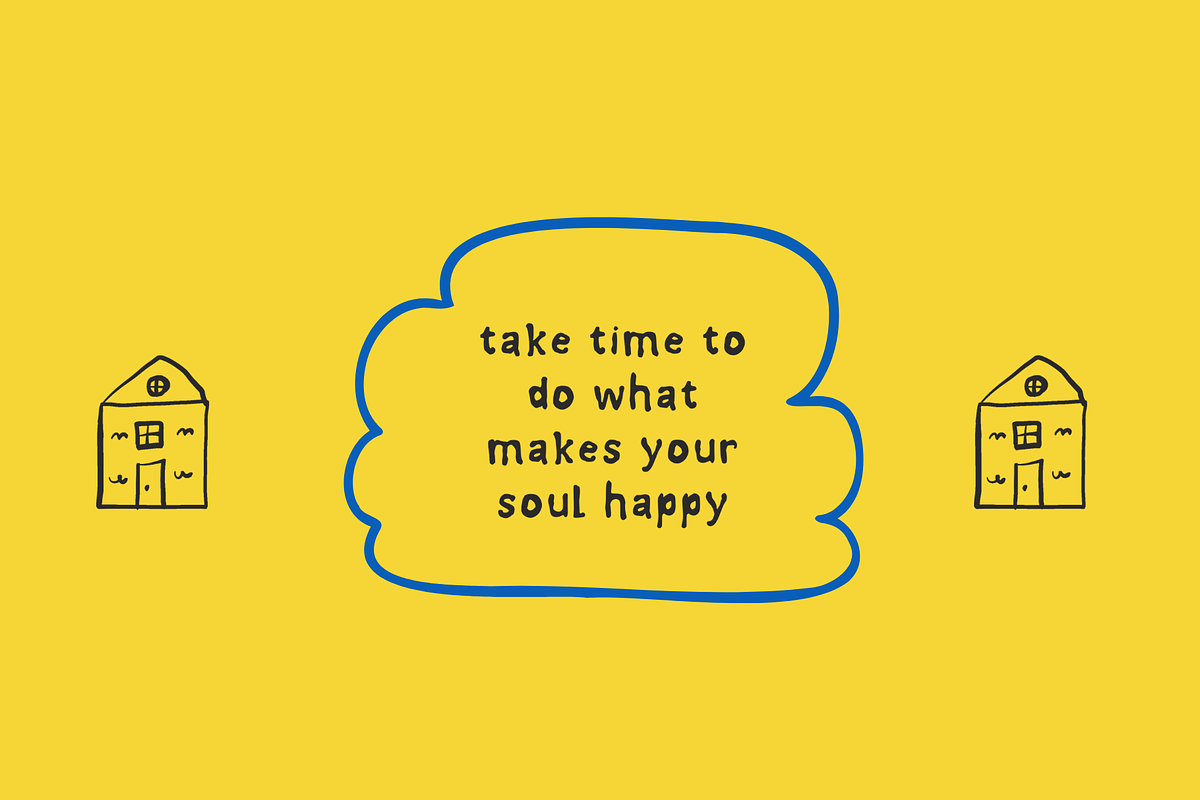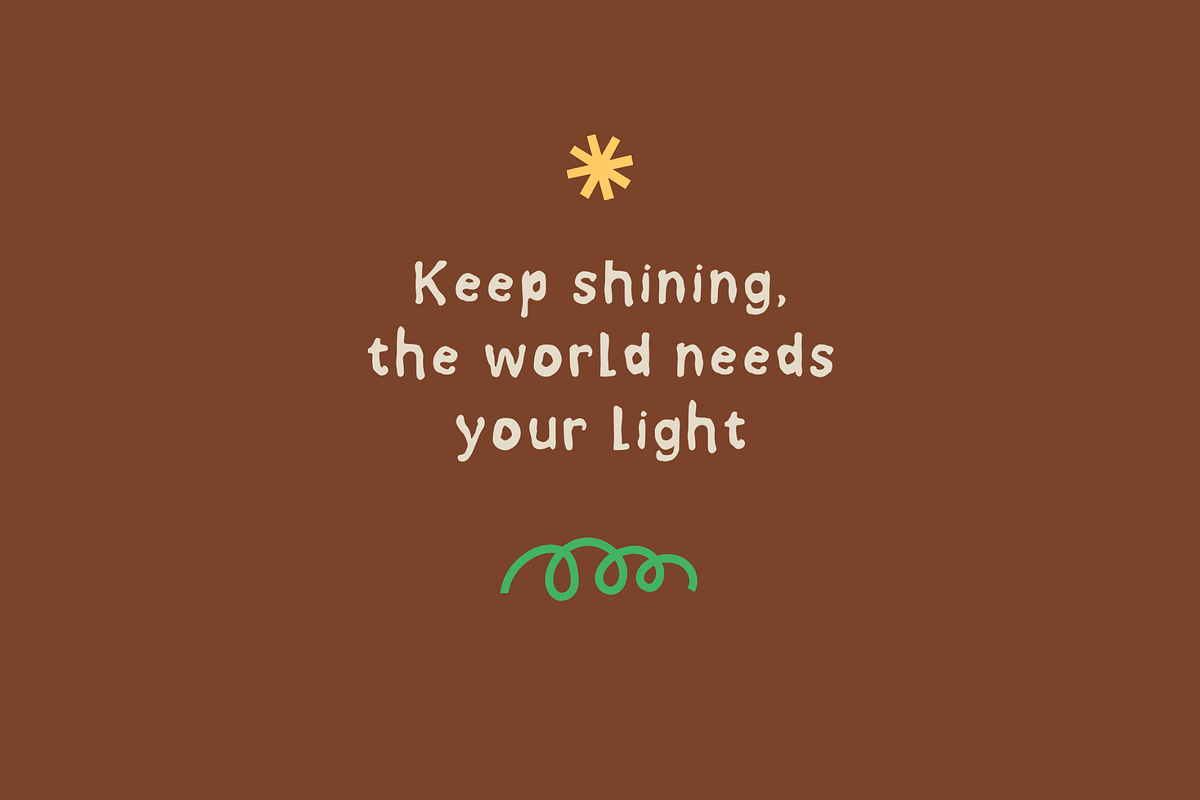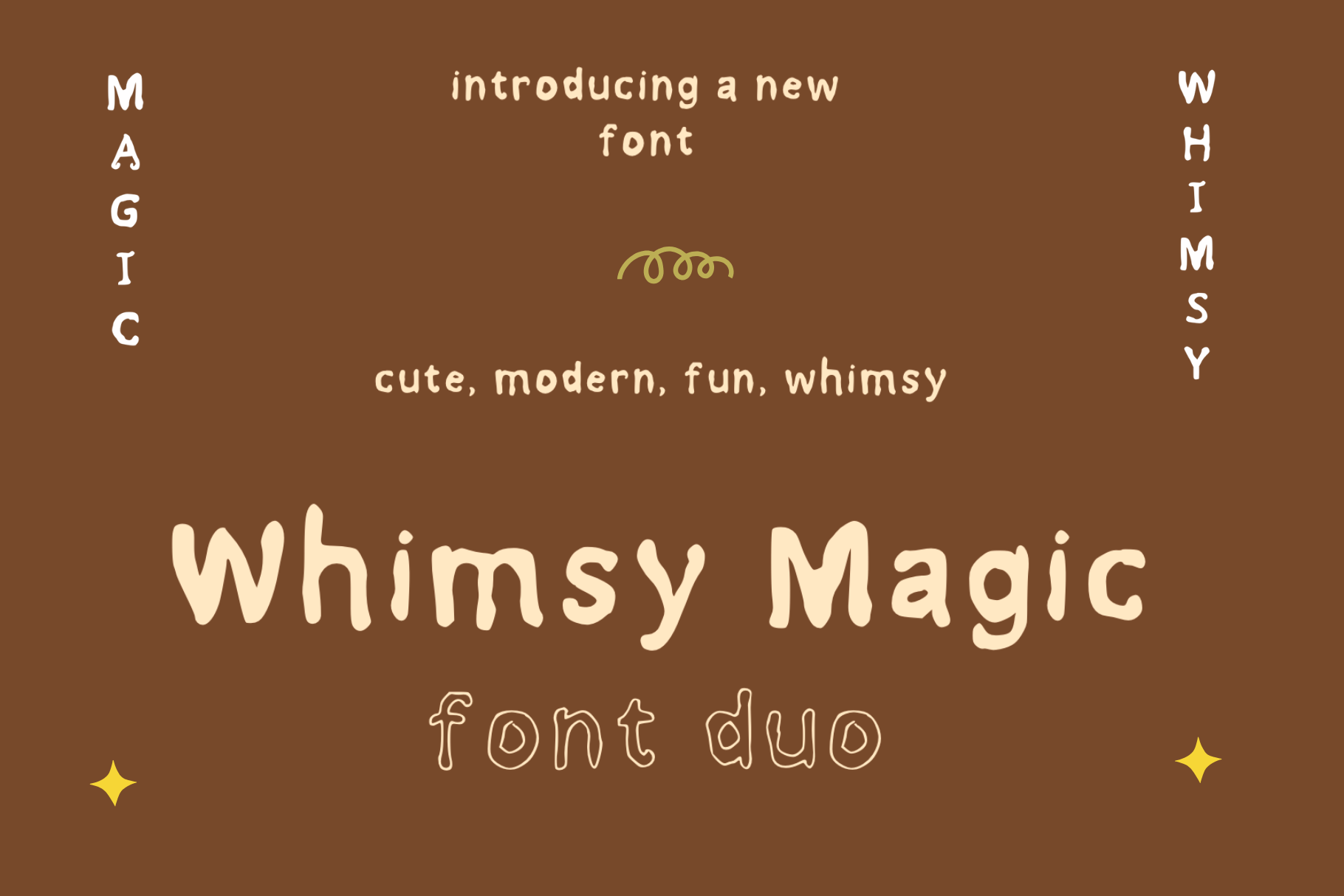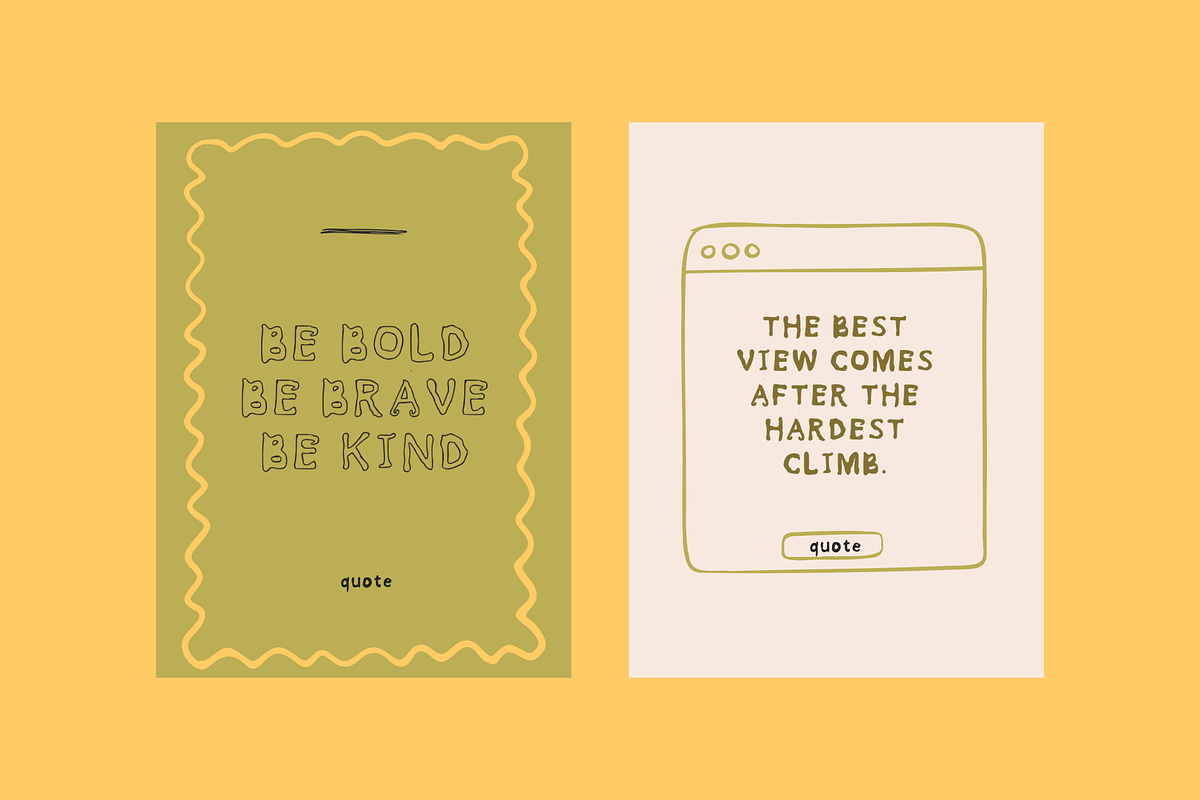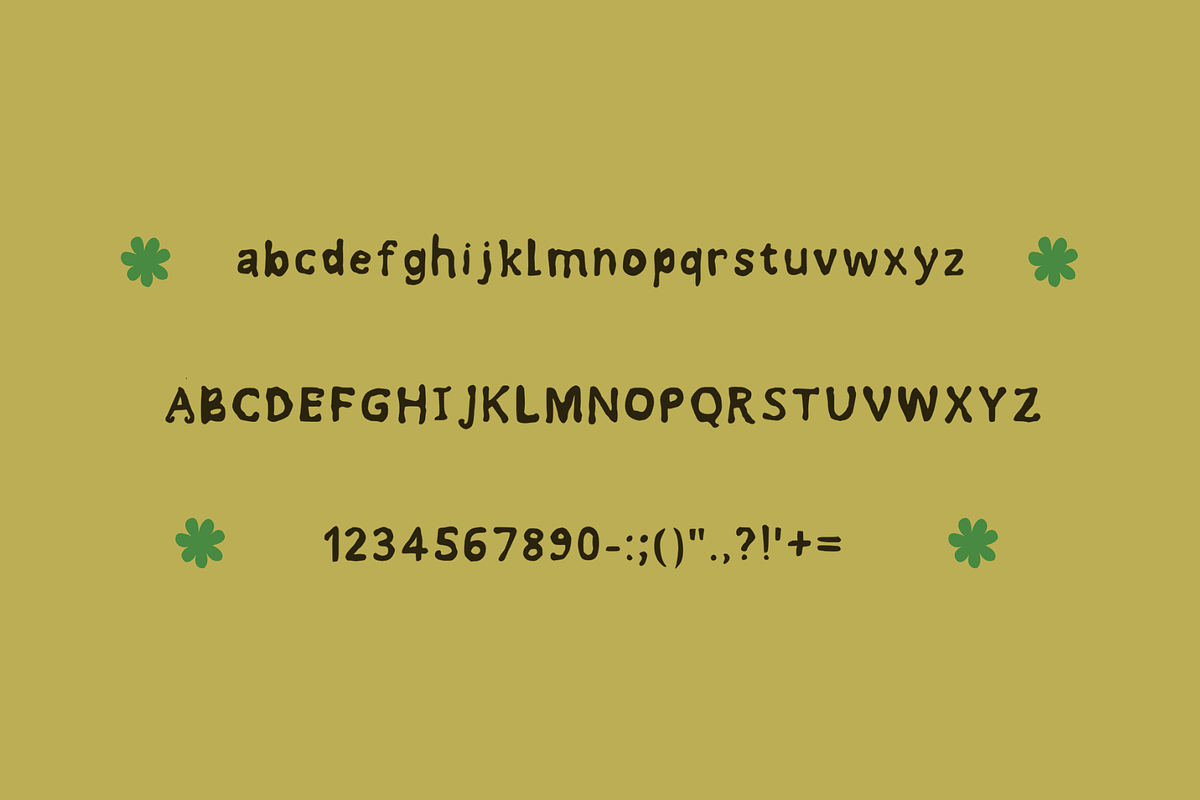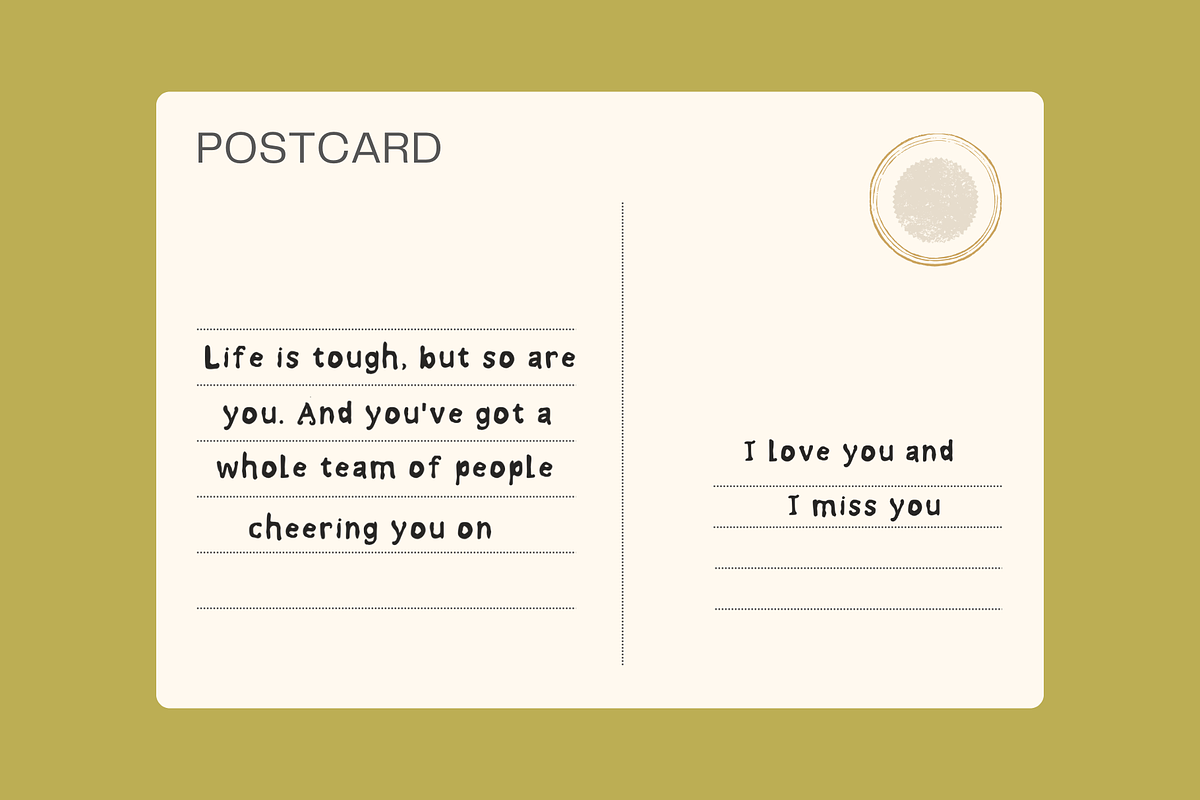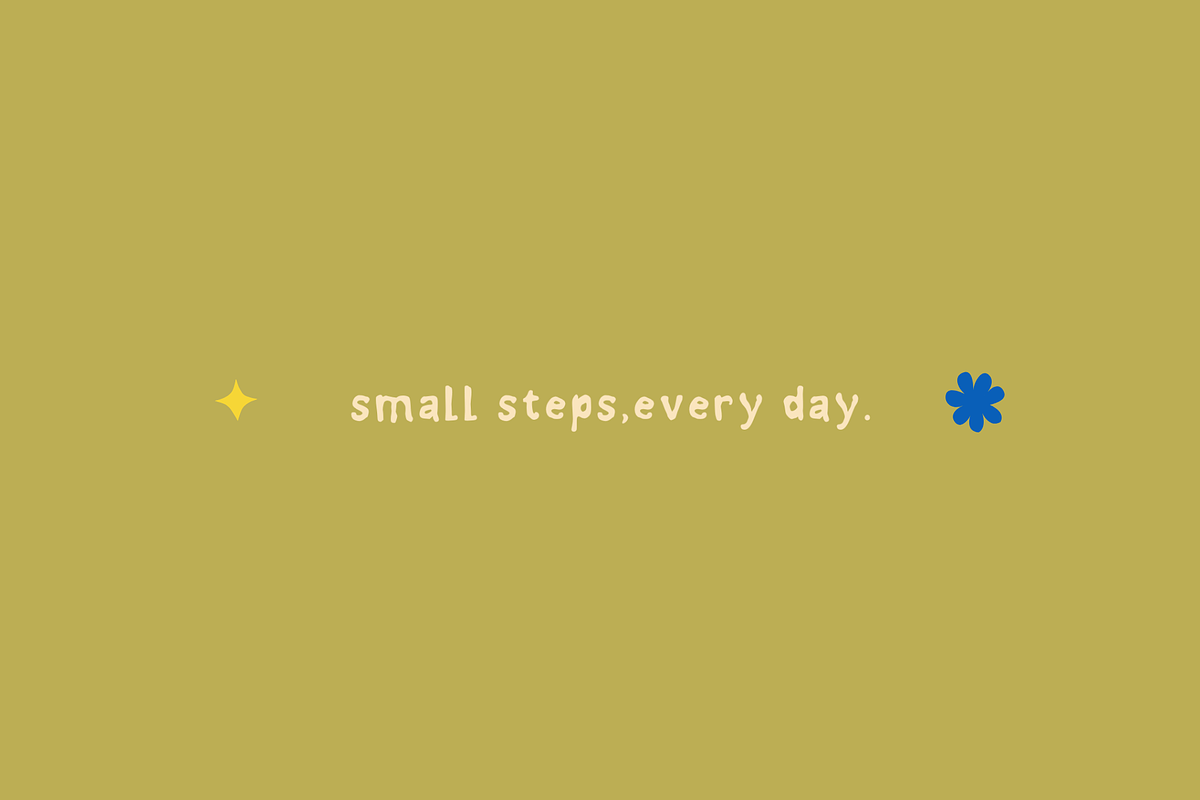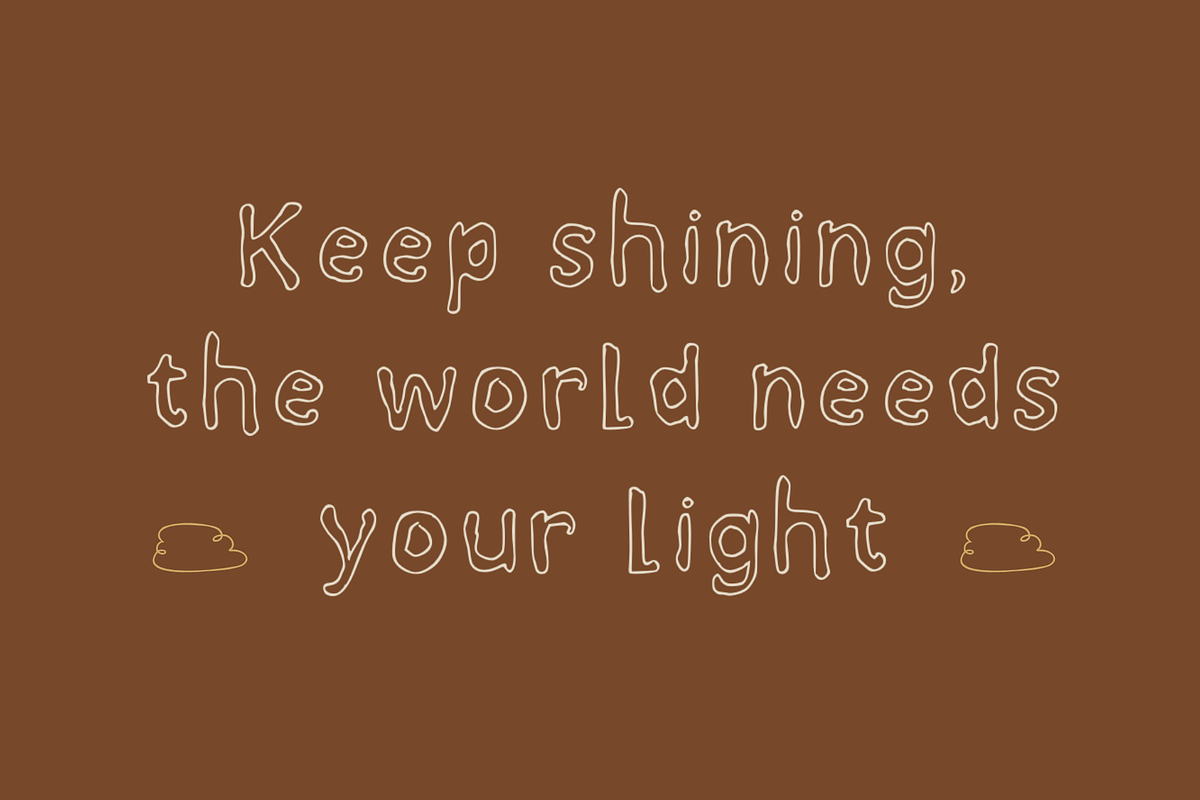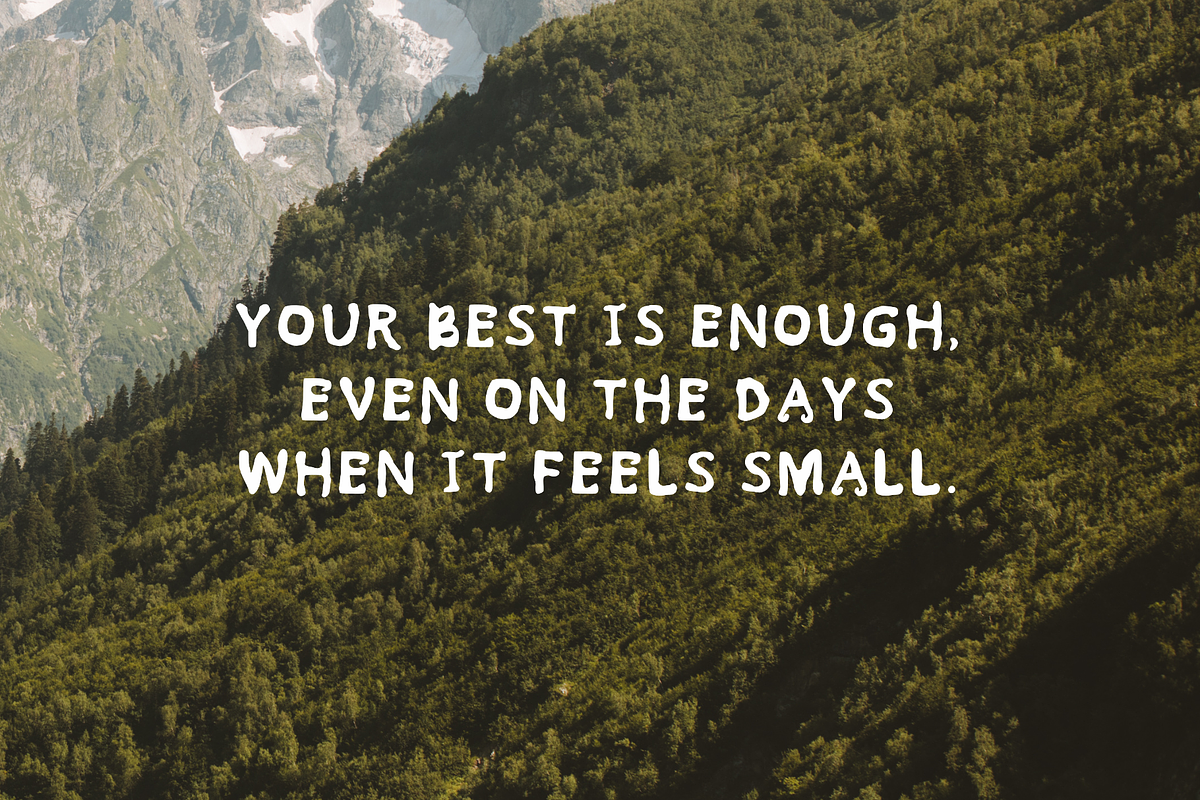
whimsy magic playful font duo
Perfect for: branding, invitations, logo design, packaging, nursery decor, social media quotes, greeting cards, book covers